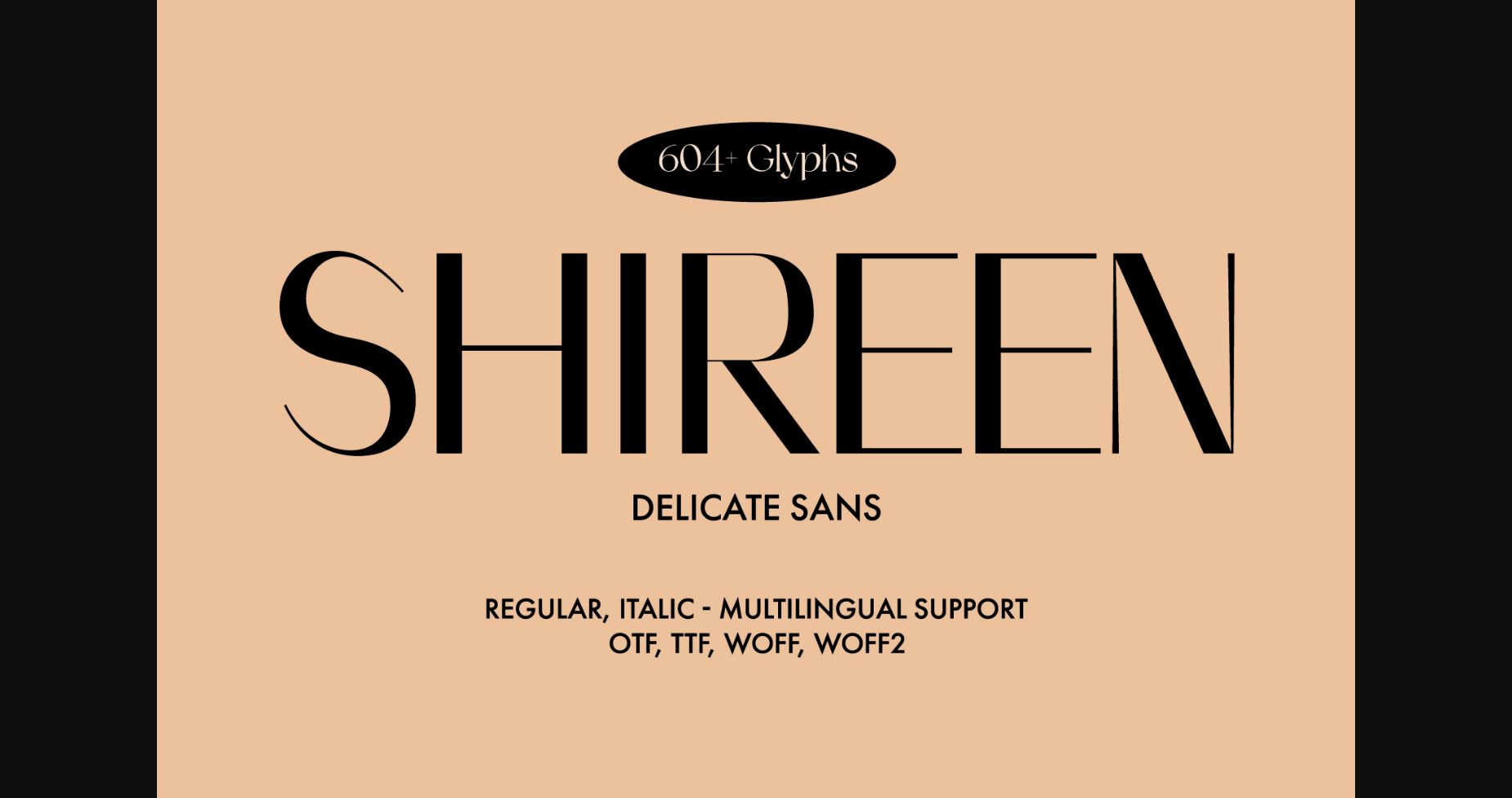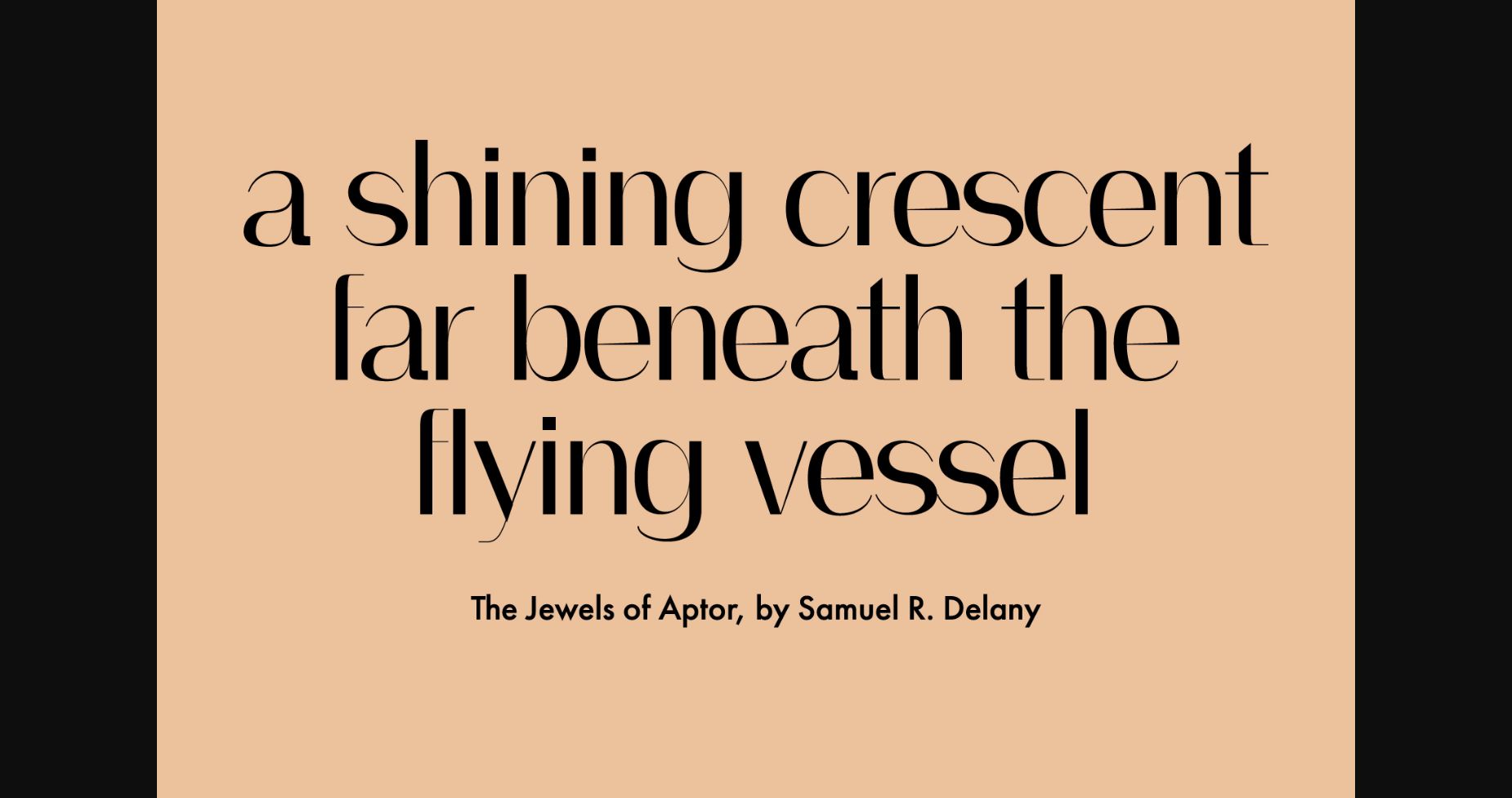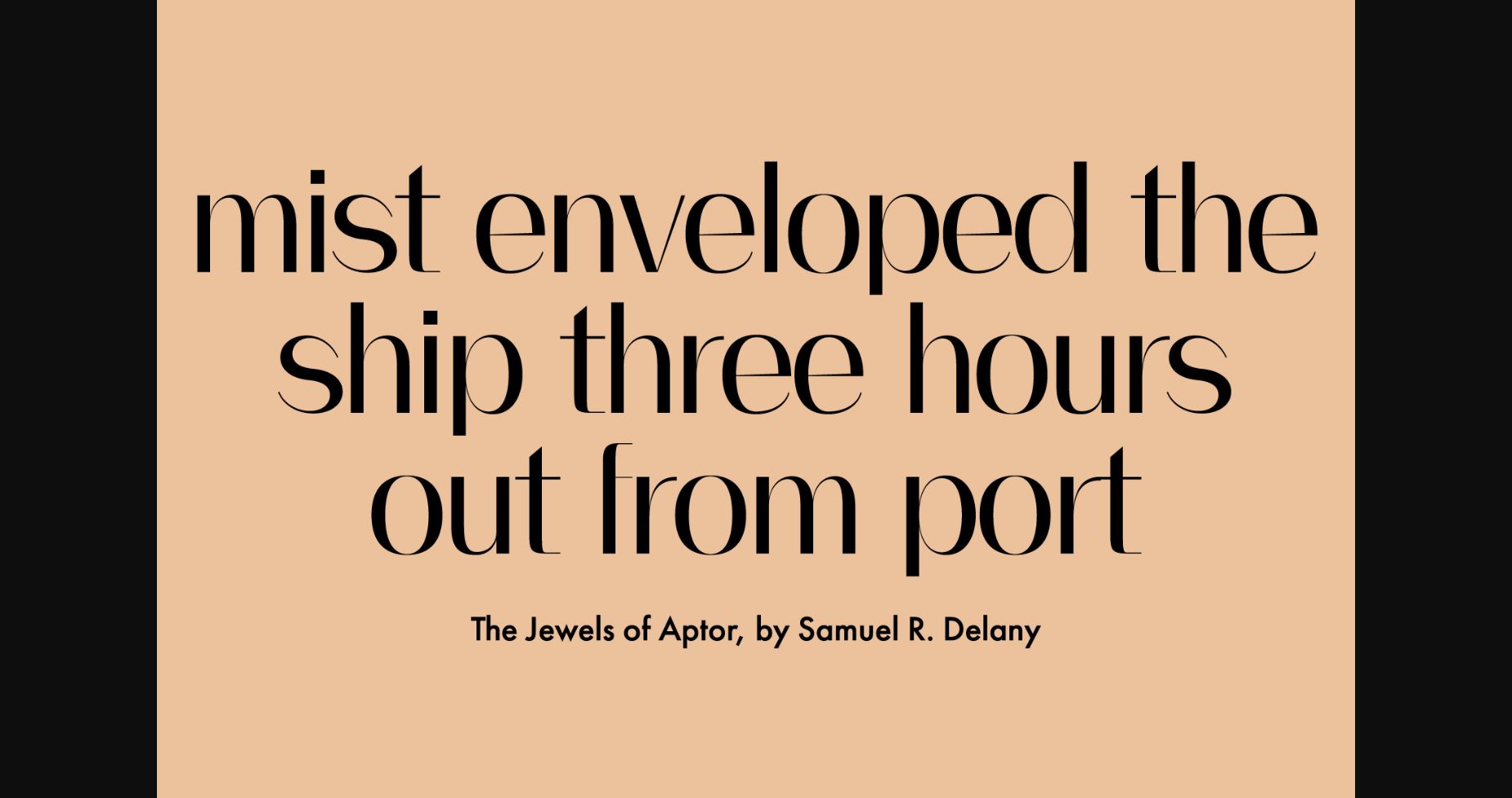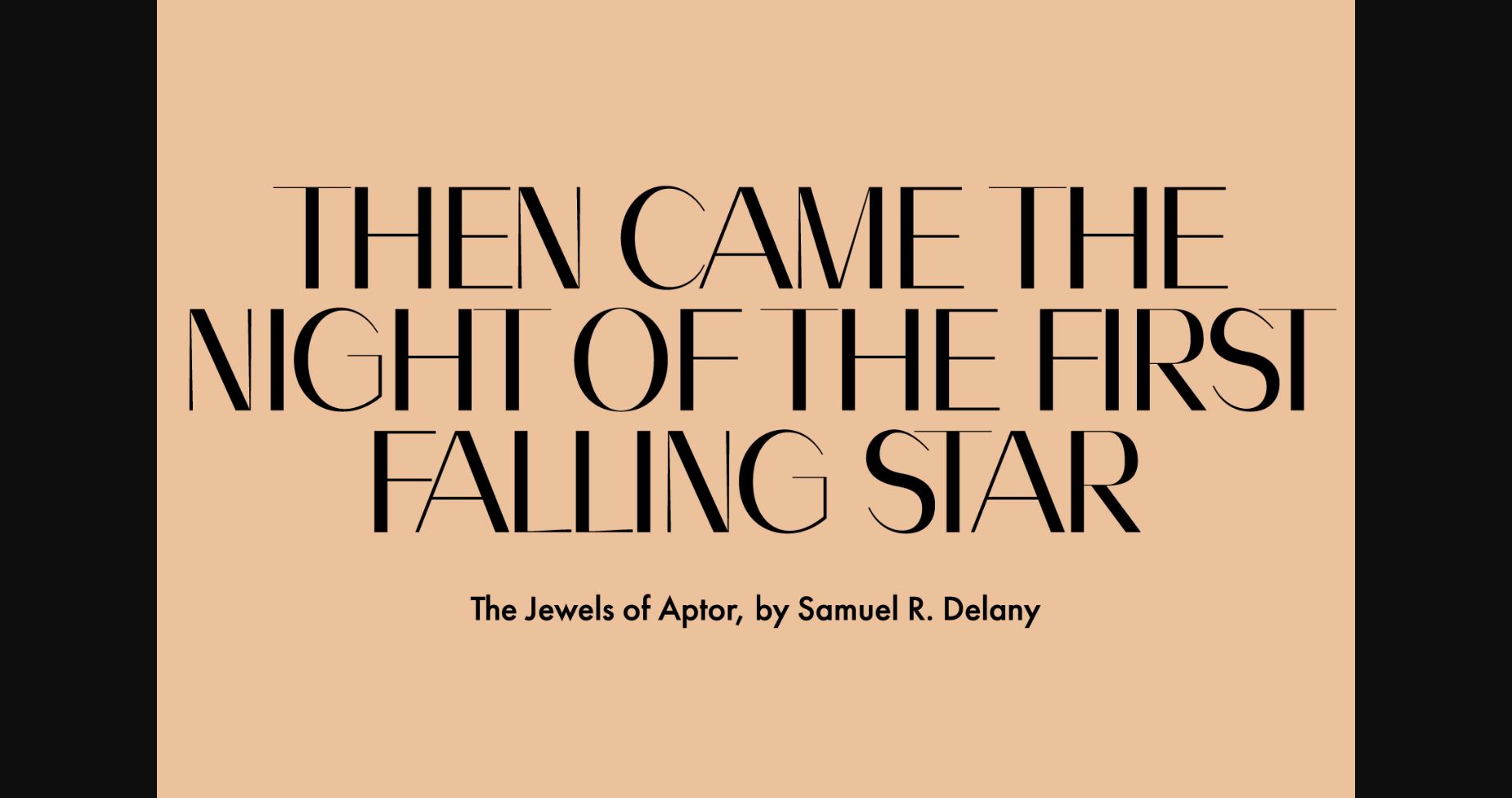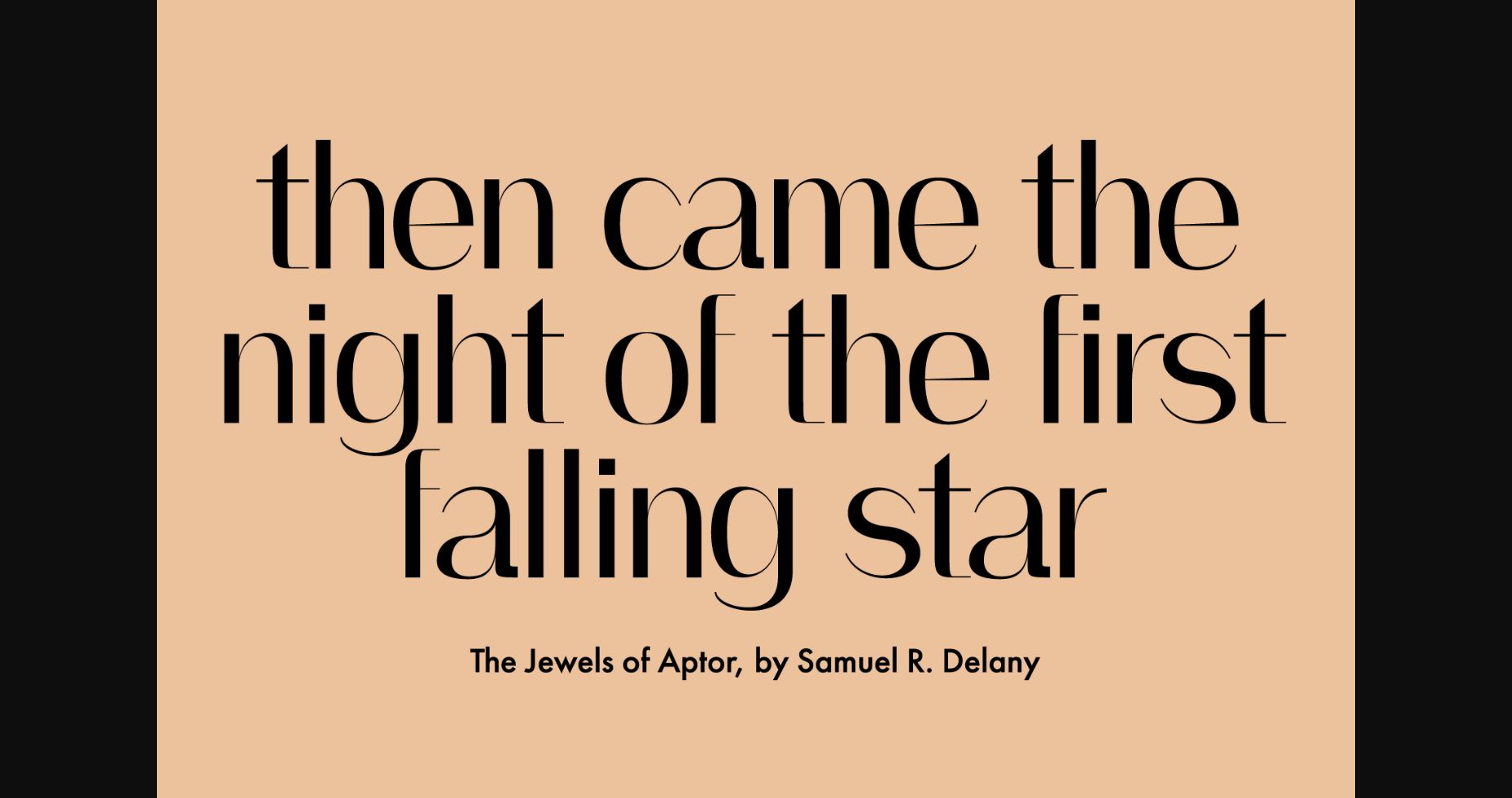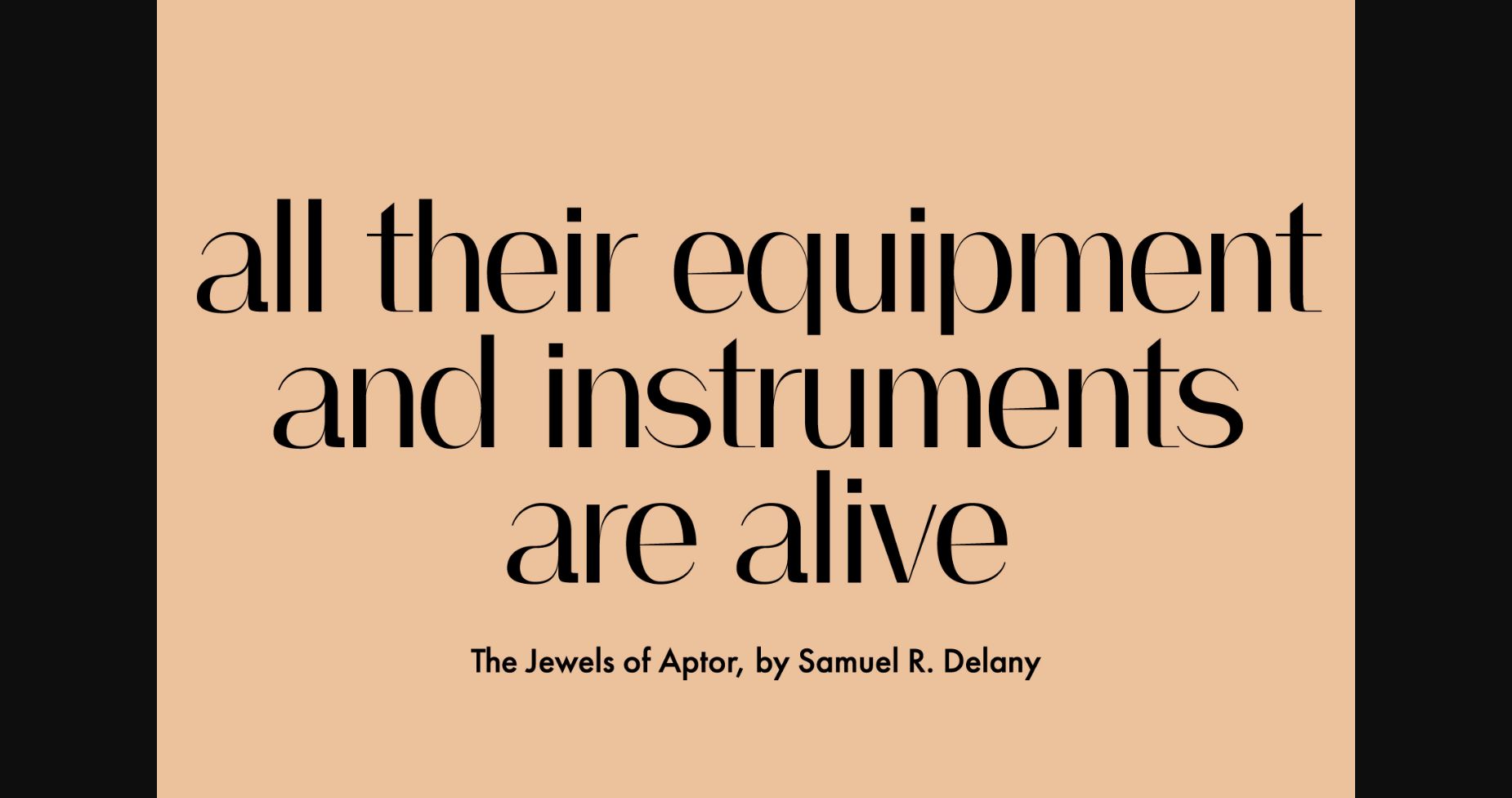
About Shireen Font
Shireen is a sleek and sophisticated sans-serif typeface that will elevate any design project to the next level. Its clean lines and minimalistic form make it an ideal choice for a wide range of design applications, from sleek logos and branding to stunning print materials.